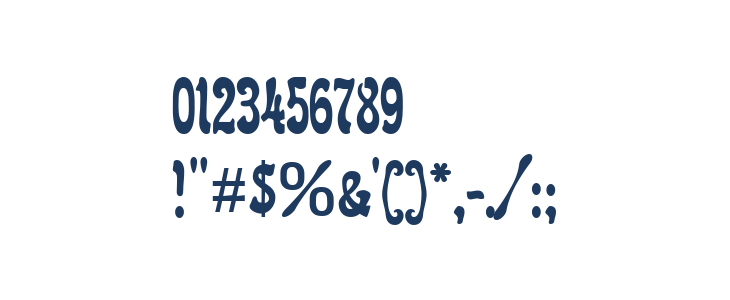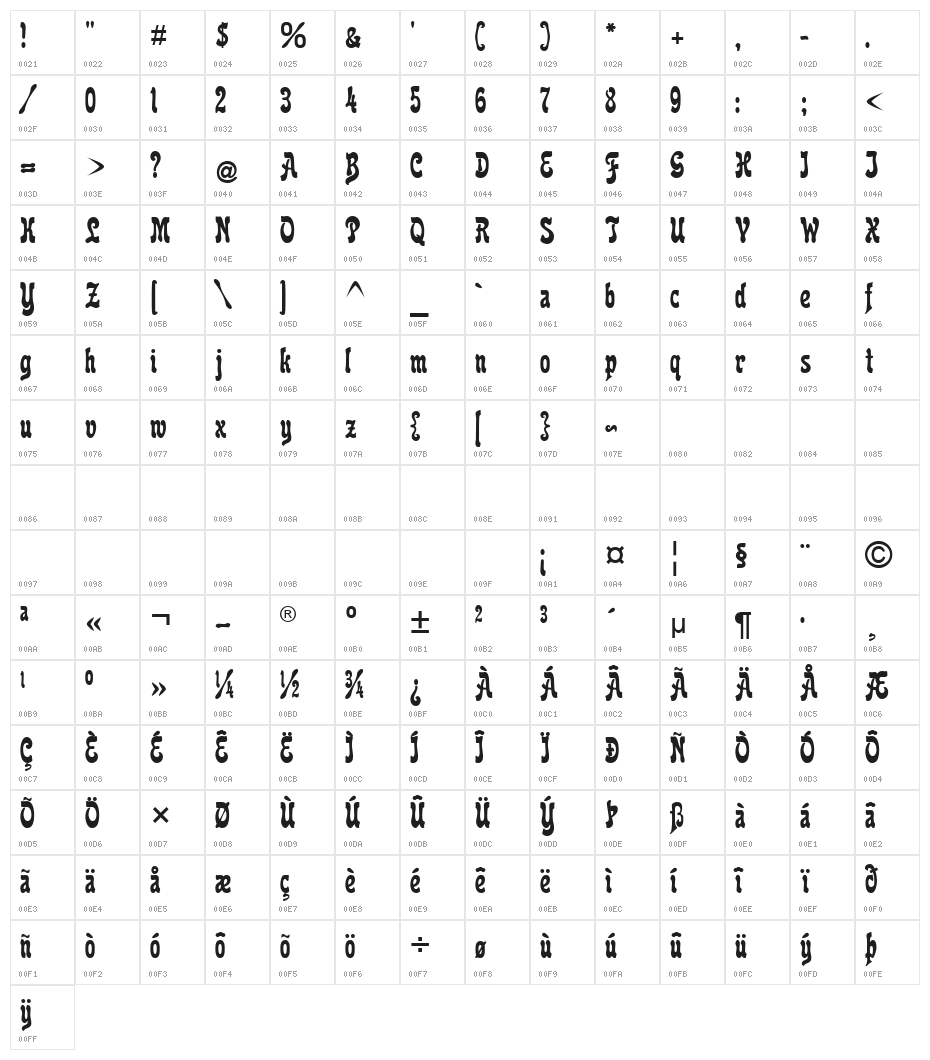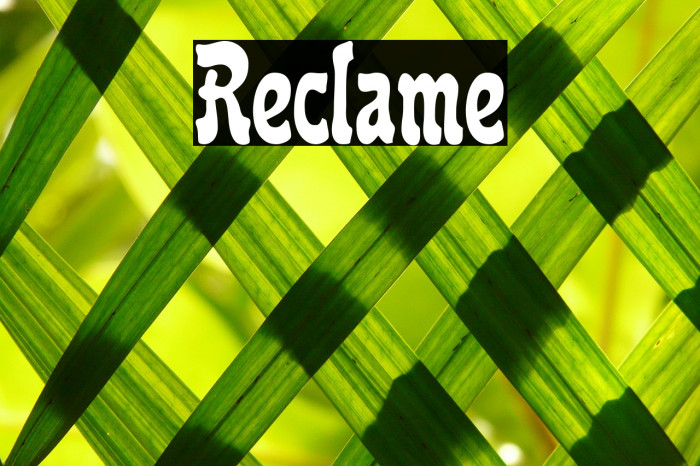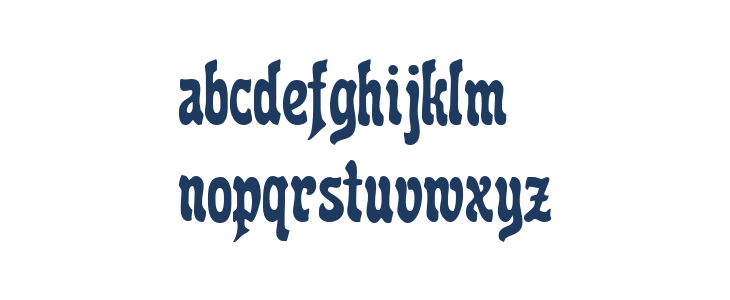
Reclame Font
Reclame Description
This font features a bold and playful design with a distinctly retro flair. The characters are thick and rounded, giving them a strong presence on the page. The uppercase letters are particularly striking, with exaggerated curves and a slightly whimsical touch. The lowercase letters maintain the same boldness, ensuring consistency throughout the text. Numbers and special characters are equally robust, making this font versatile for various uses. Its unique style is reminiscent of vintage advertising, making it ideal for projects that require a nostalgic or eye-catching look.